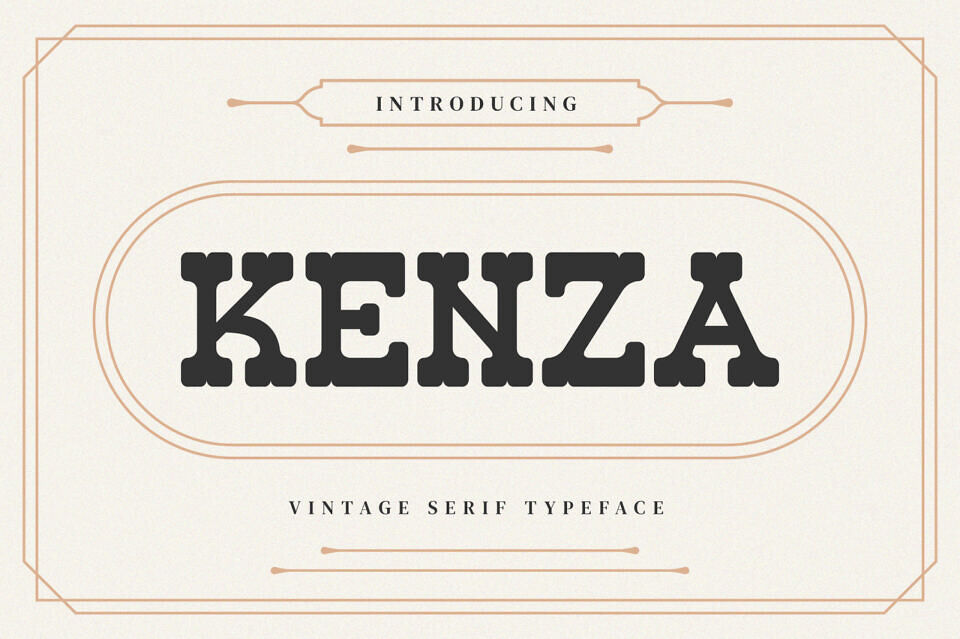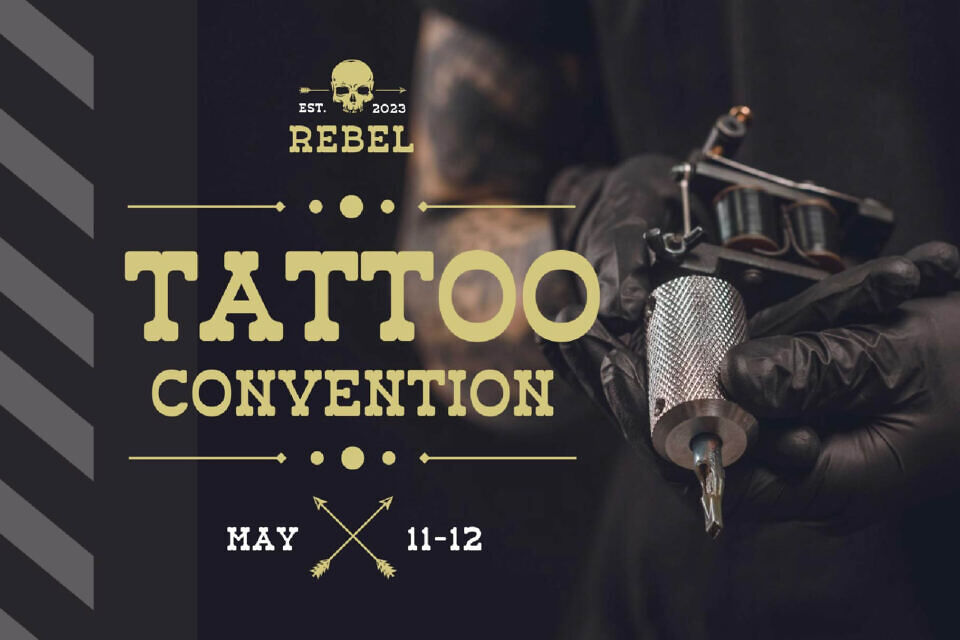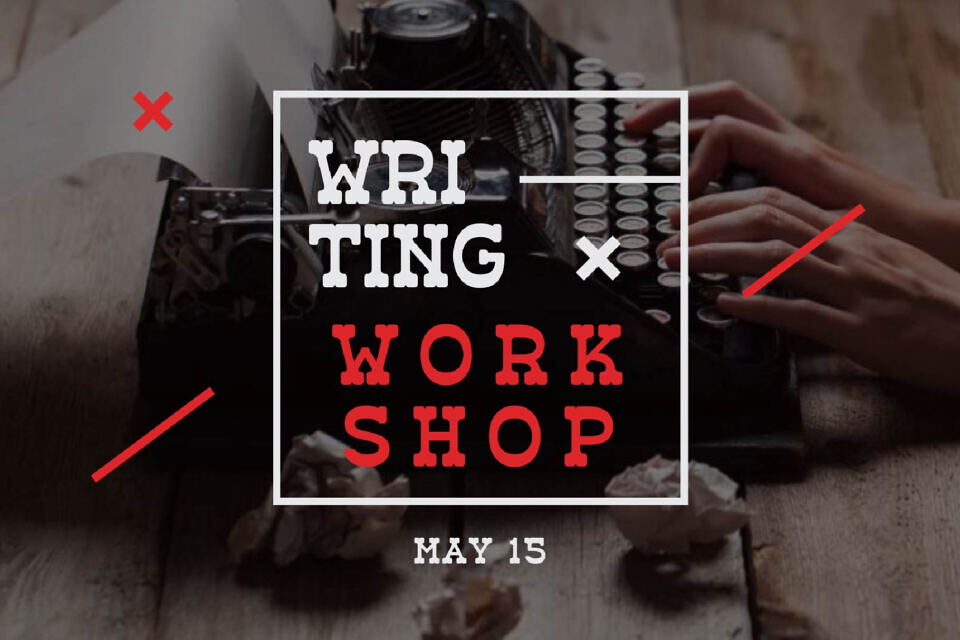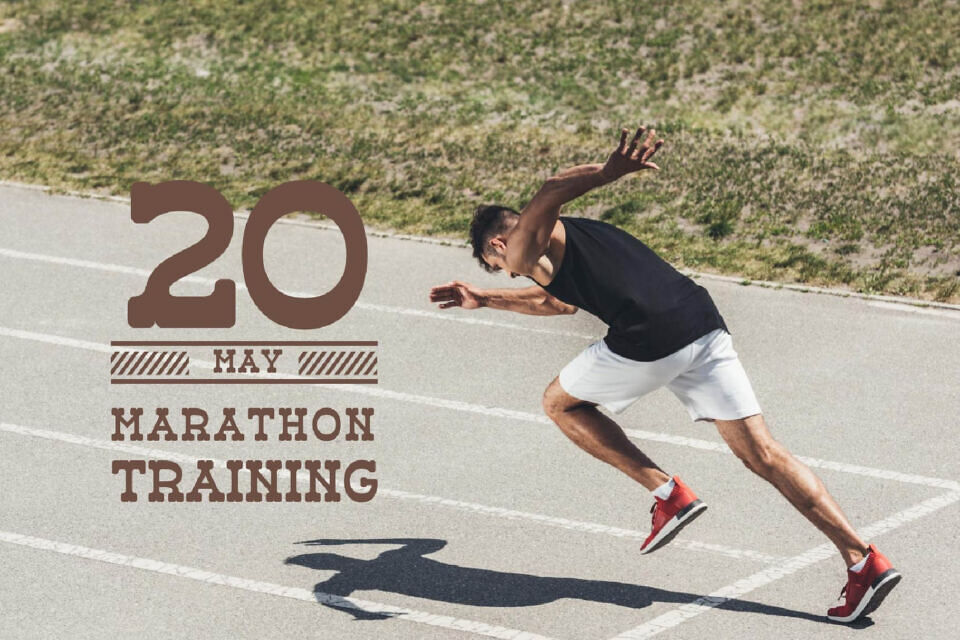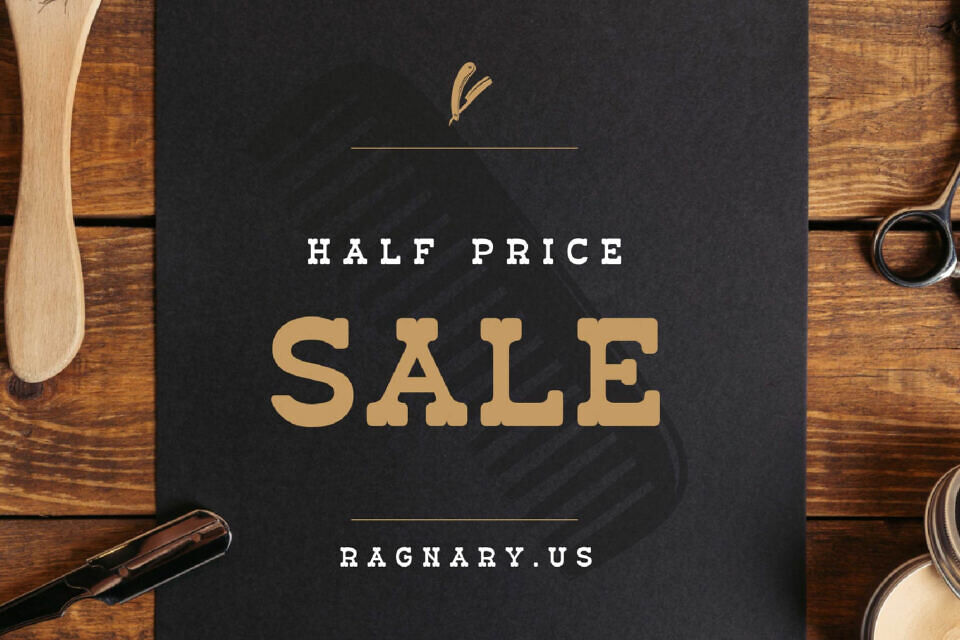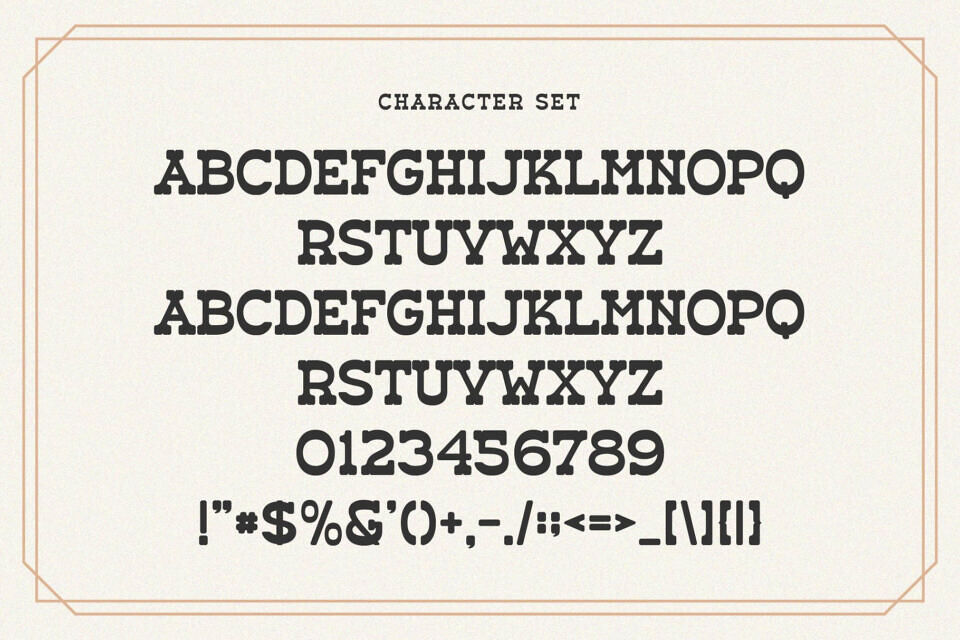
Kenza Font
Kenza is a slab serif font inspired by minimalist design. It’s ideal for creating templates, brochures, videos, and advertising materials, including logos and invitations. Its elegant style also suits beauty and layout design, making it a versatile choice for various creative projects.